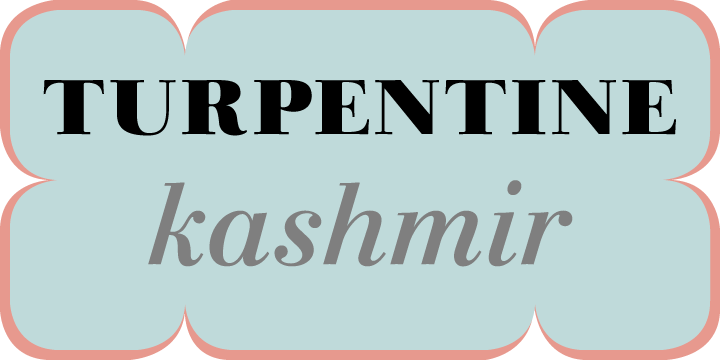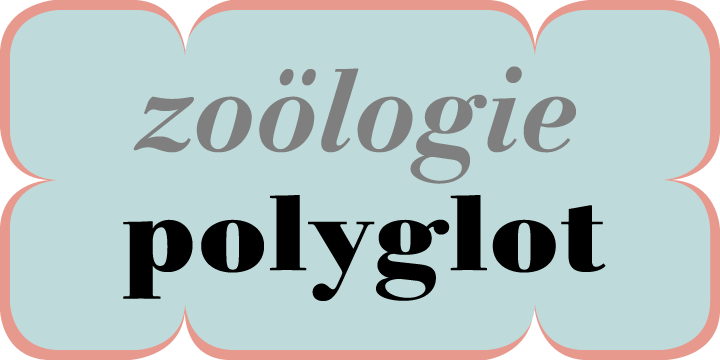
The Italian designer Antonio Pace created the font Linotype Gianotten™ in 2000. Linotype Gianotten is a new interpretation of the classic Bodoni font. For this adaptation of the modern face, Antonio Pace went back to Giambattista Bodoni’s original punches, kept in a museum in Parma, and reinterpreted the 200-year-old characters for the world of modern digital technology. Rigorous design and the organic, unadorned construction of the individual characters give Linotype Gianotten a contemporary, highly readable appearance.